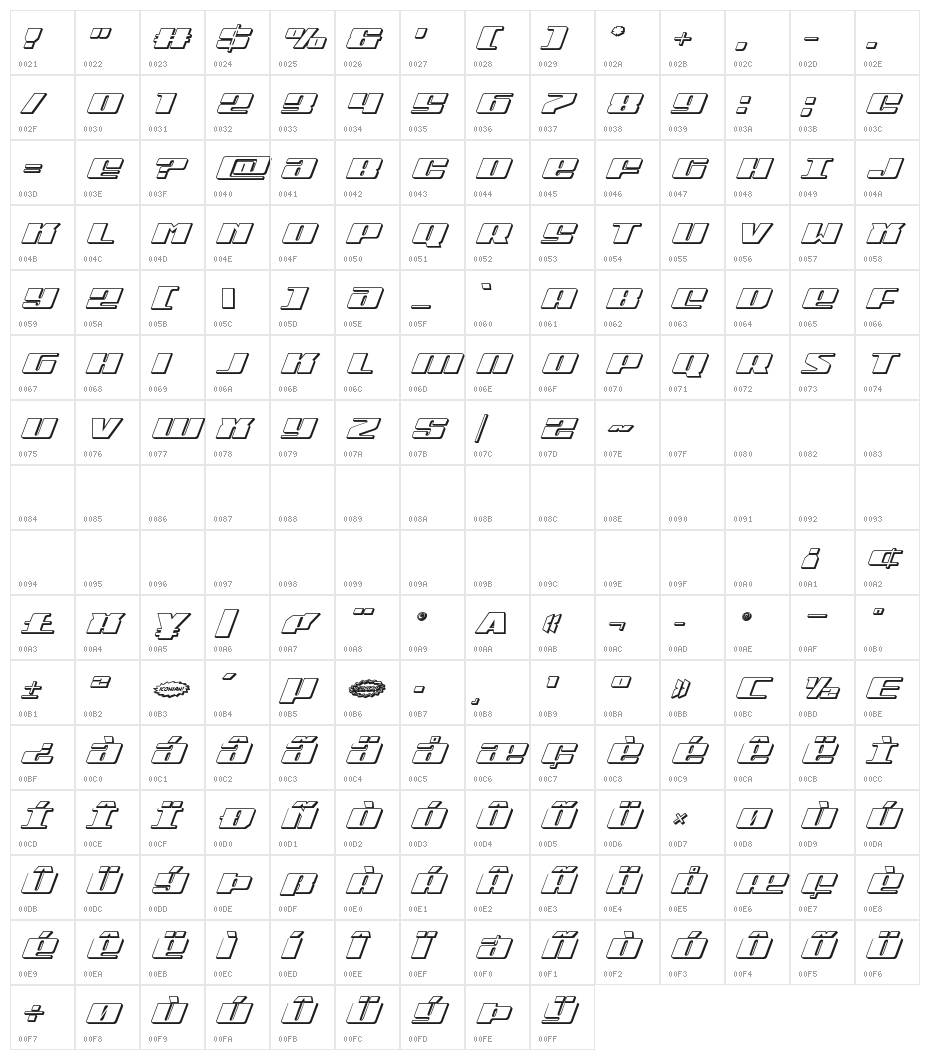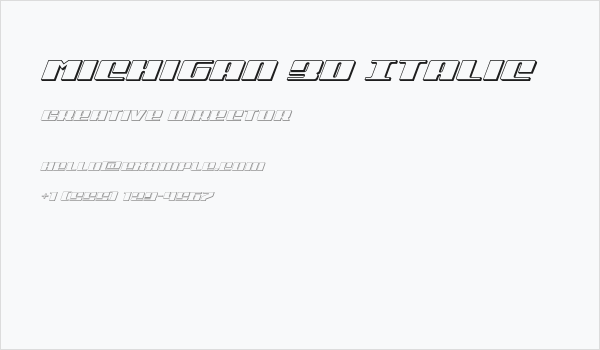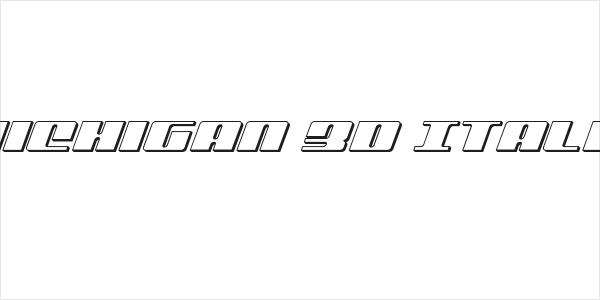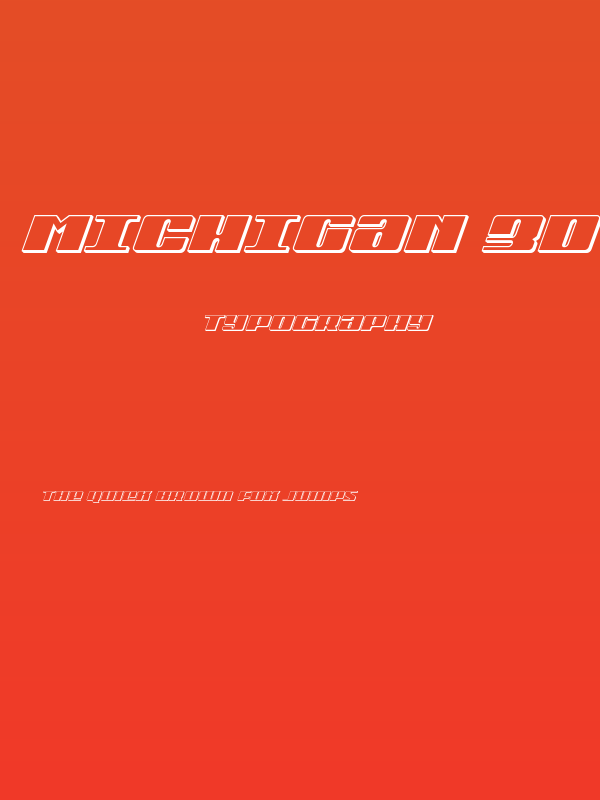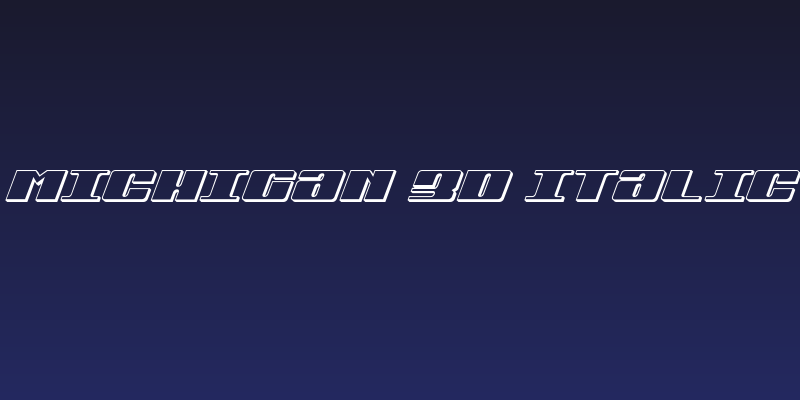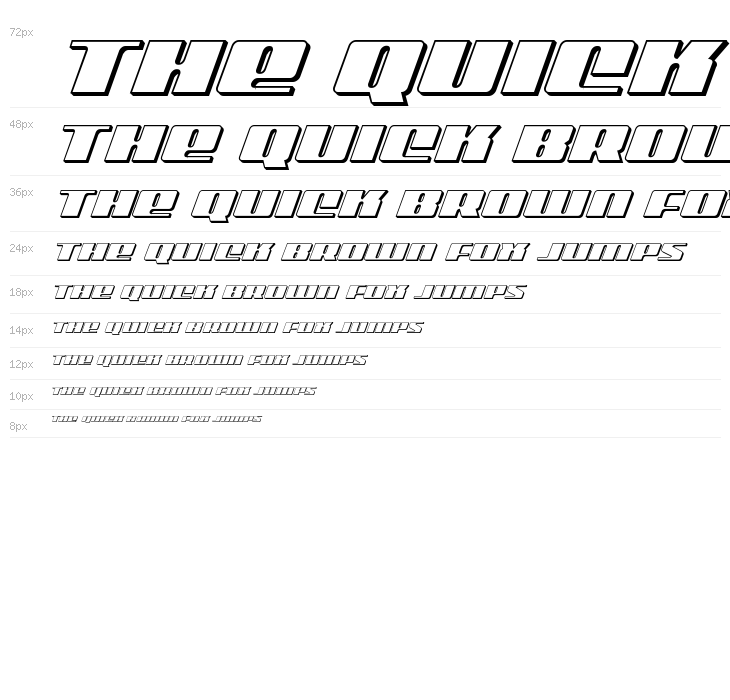
Michigan 3D Italic Font
Michigan 3D Italic Description
This font features a bold, three-dimensional appearance with a distinct italic slant, giving it a dynamic and futuristic feel. The characters are outlined, creating a sense of depth and movement. The uppercase and lowercase letters maintain a consistent style, with sharp angles and clean lines. The numerals and special characters are designed to match the overall aesthetic, ensuring uniformity across all elements. This font is ideal for projects that require a modern and eye-catching design, such as sports branding, technology-related materials, or any creative endeavor that seeks to stand out.
| Proposed Projects | Ideal for sports branding, tech-related designs, and creative projects needing a standout look. |